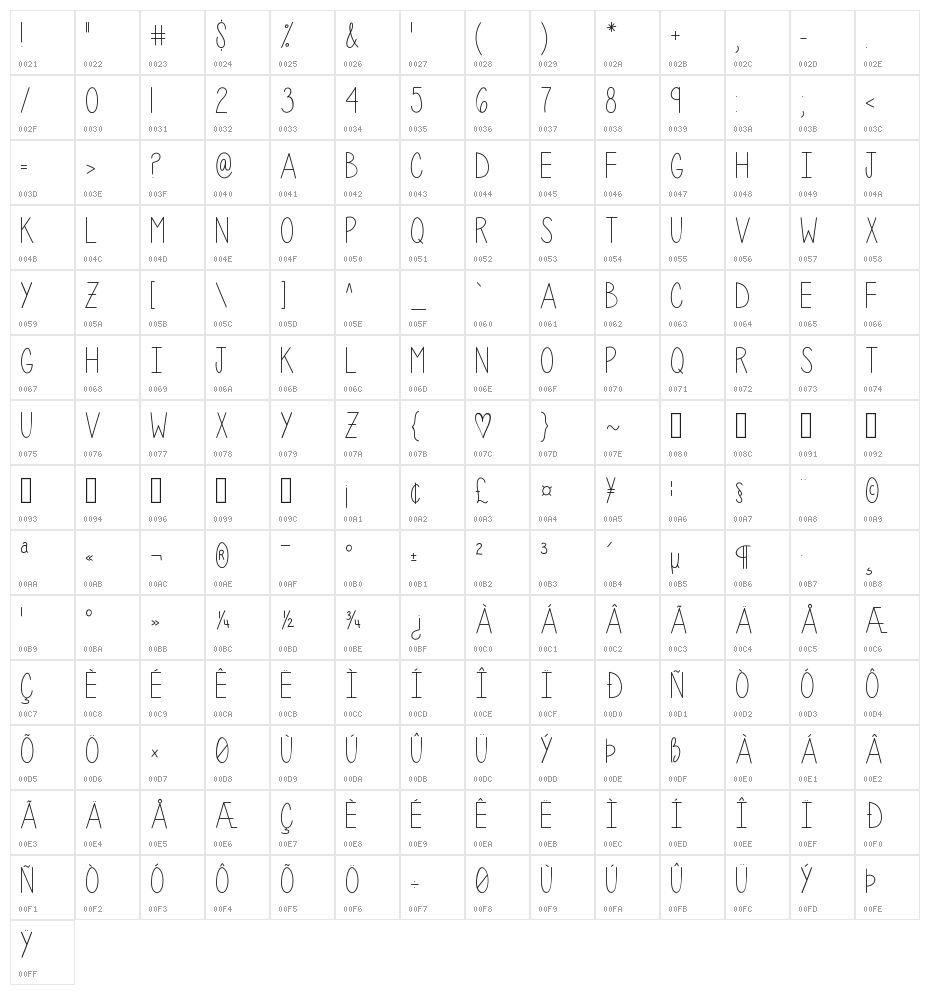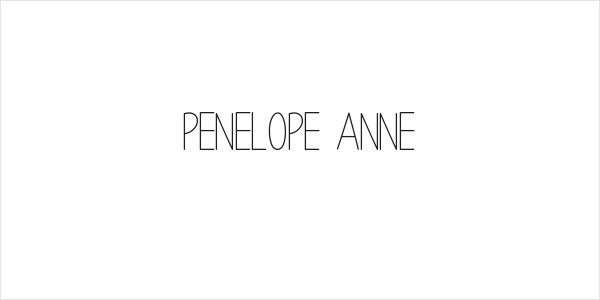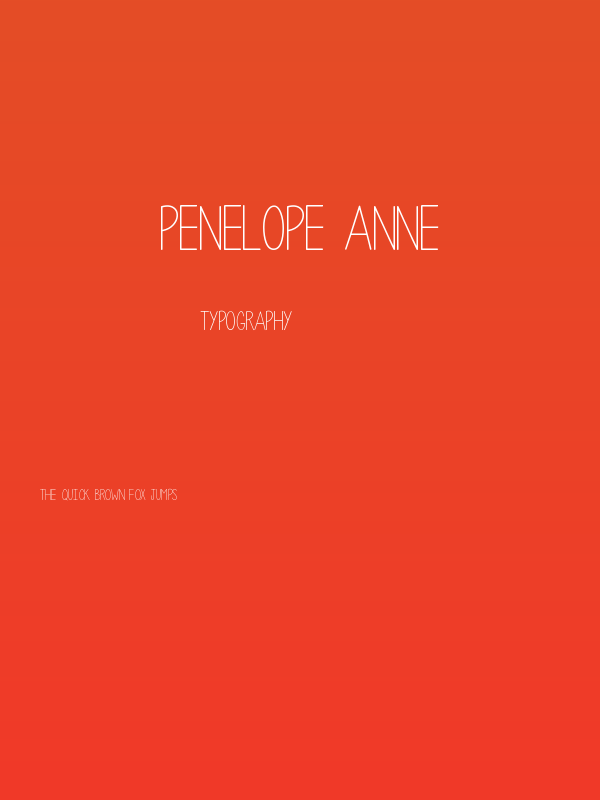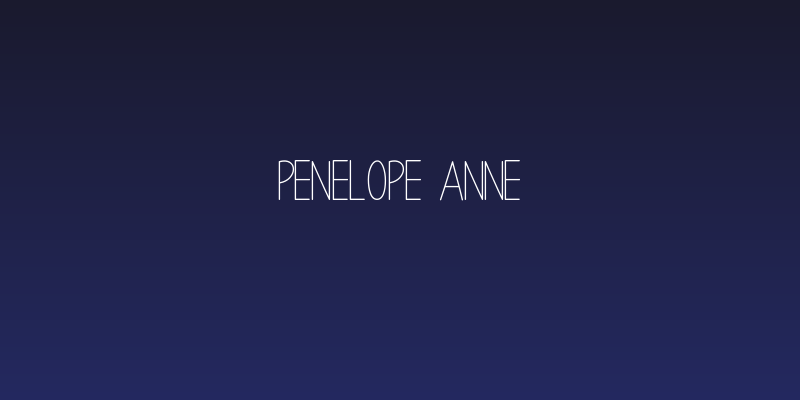
Penelope Anne Font
Penelope Anne Description
This font features a tall, slender design with a clean and minimalist aesthetic. The characters are uniformly narrow, giving it a modern and elegant appearance. The strokes are consistent in width, providing a uniform look across all letters and numbers. The uppercase and lowercase letters maintain a cohesive style, with slightly rounded edges that soften the overall look. The numerals are clear and easy to read, matching the style of the alphabet. Special characters are included, maintaining the same slender and clean design. This font is versatile, suitable for both digital and print media, and can be used to convey a sense of sophistication and modernity.
| Proposed Projects | Ideal for fashion magazines, modern branding, minimalist posters, and elegant invitations. |